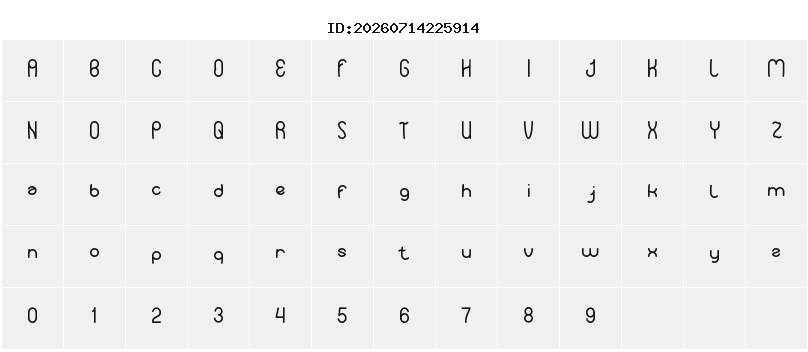
• Font Name: Your Smile
• Full Font Name: Your Smile
• Version: Version 1.00 March 1, 2013, initial release
About Your Smile.ttf
Your Smile.ttf is a modern, elegant sans-serif font designed for ultimate readability and visual harmony. Perfect for branding, headlines, web design, and print materials.